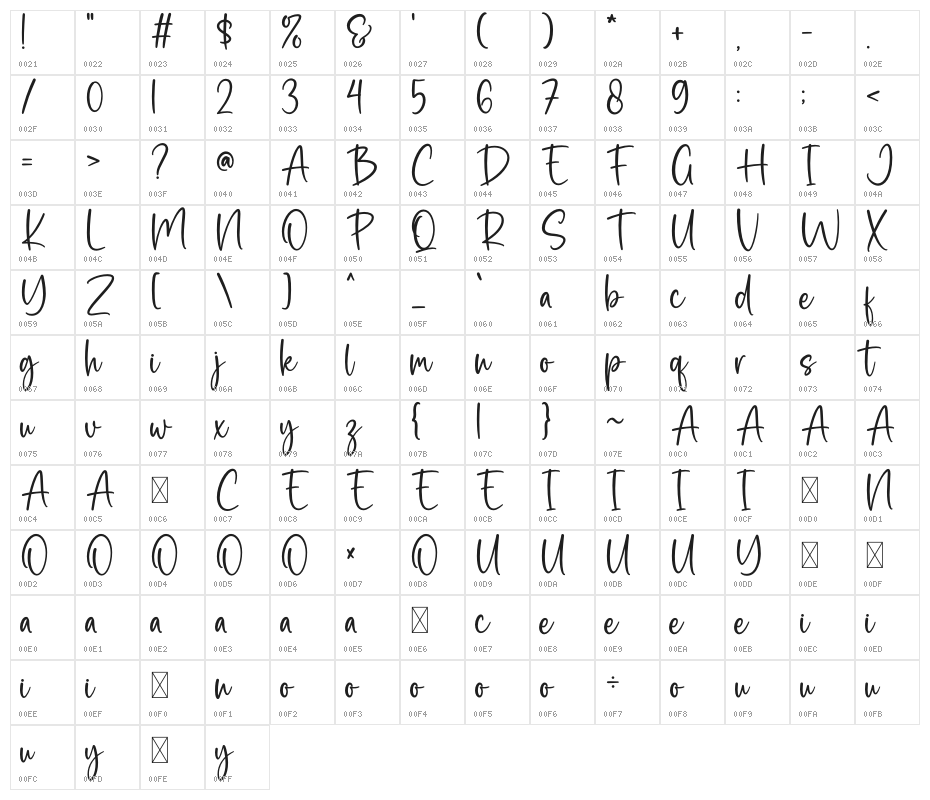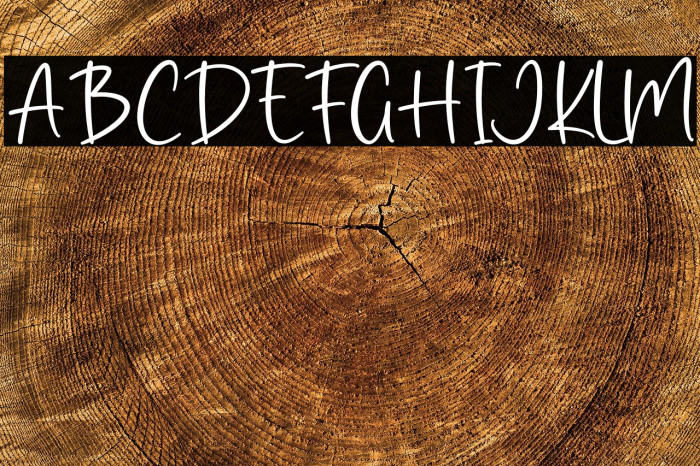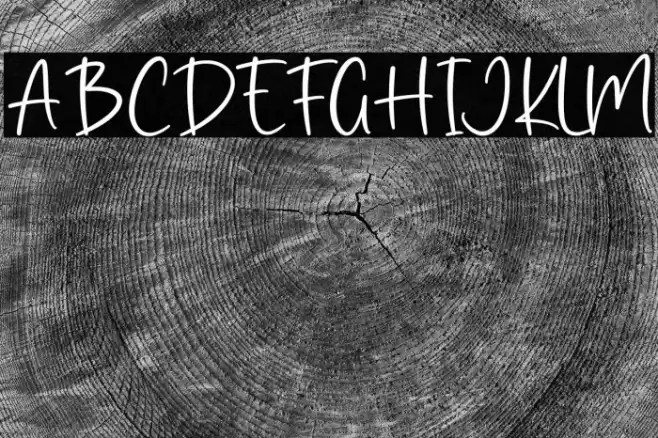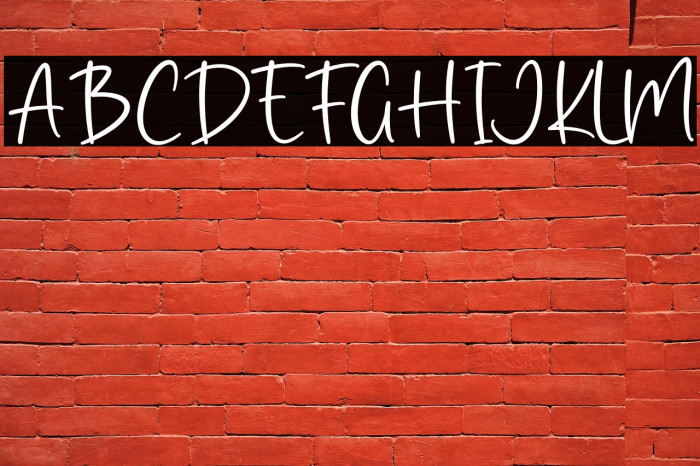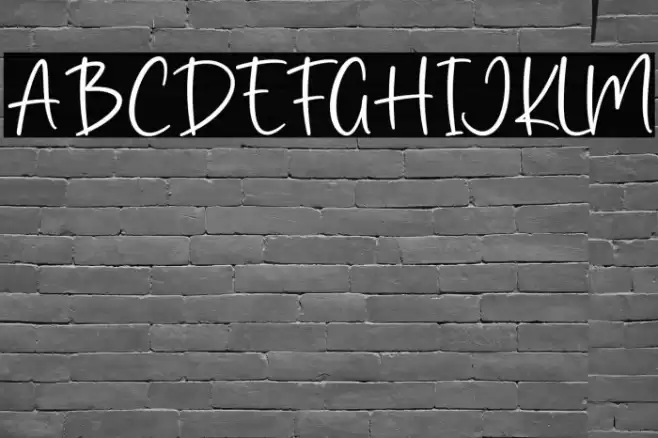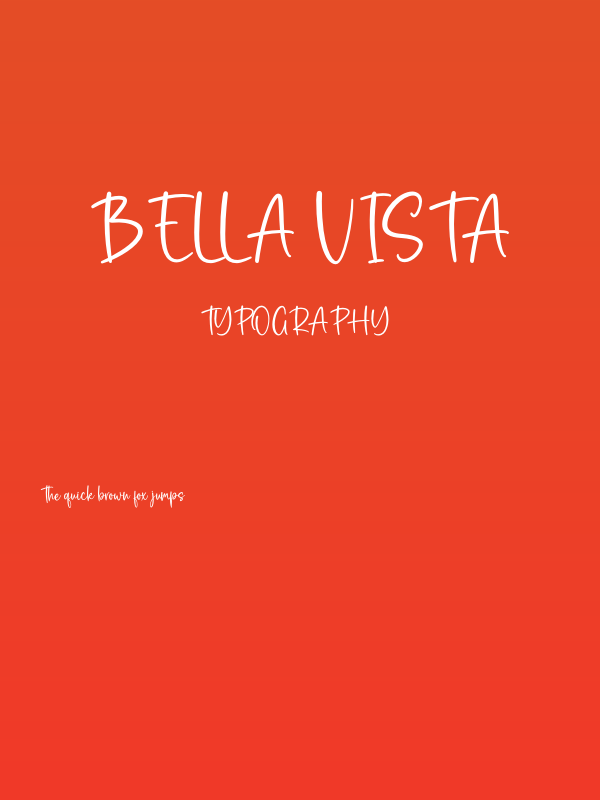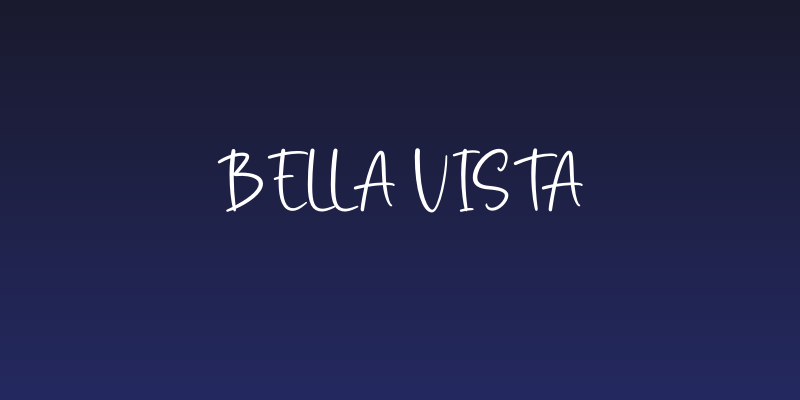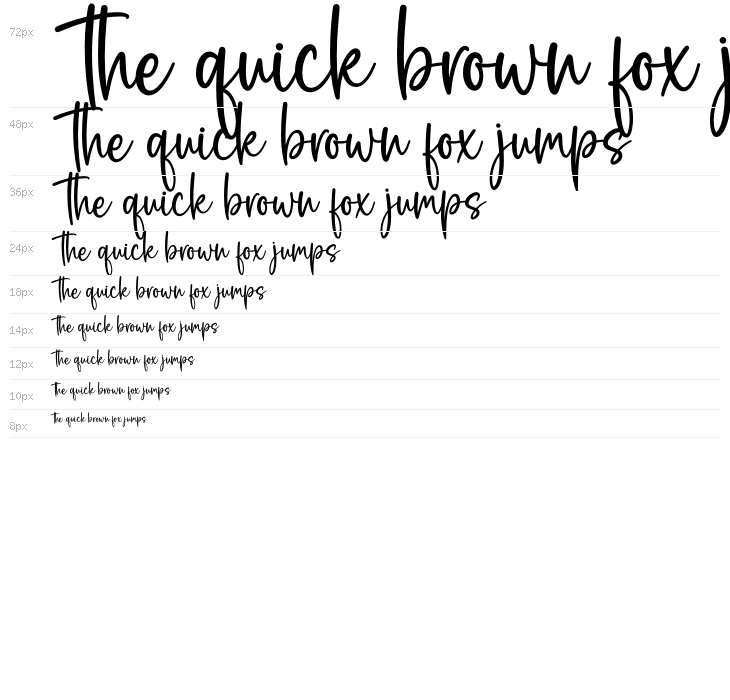
Bella Vista Font
Bella Vista Description
This font features a playful and casual handwritten style, characterized by its flowing and slightly irregular strokes. The uppercase letters are tall and slender, while the lowercase letters maintain a consistent, rounded form, adding to the font's approachable and friendly appearance. The numbers and special characters are designed to match the overall aesthetic, with a whimsical touch that enhances the font's charm. The strokes are smooth and fluid, giving the font a dynamic and lively feel. This font is perfect for projects that require a personal and informal touch, such as invitations, greeting cards, or social media graphics.
| Proposed Projects | Ideal for invitations, greeting cards, social media graphics, and personal branding. |